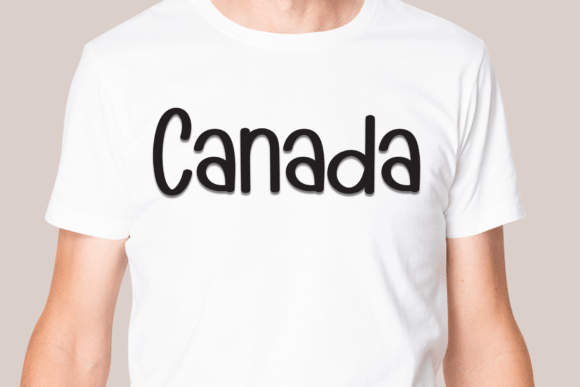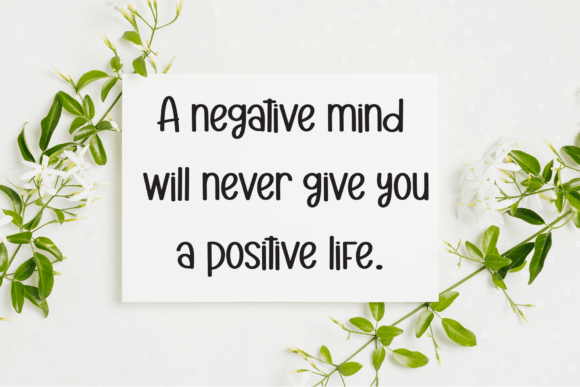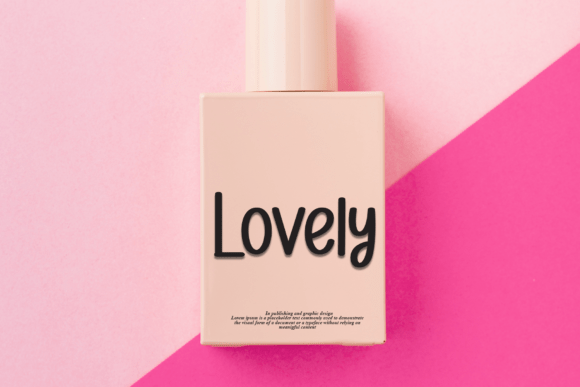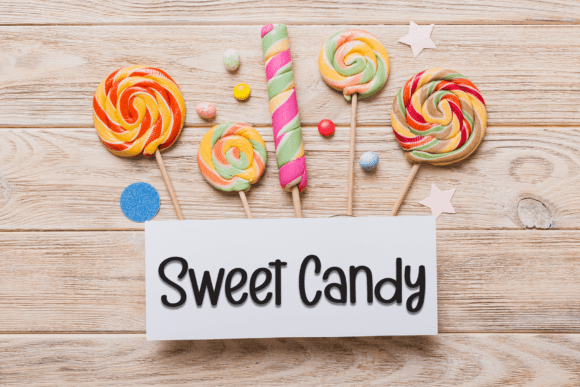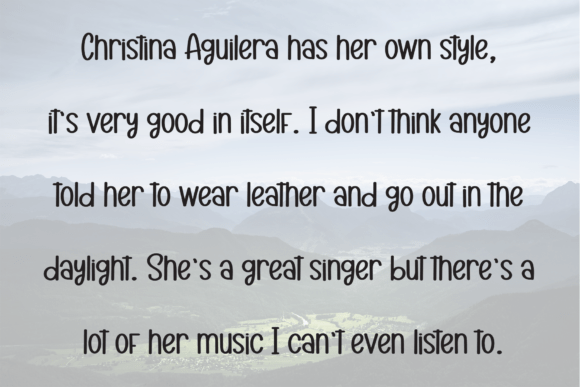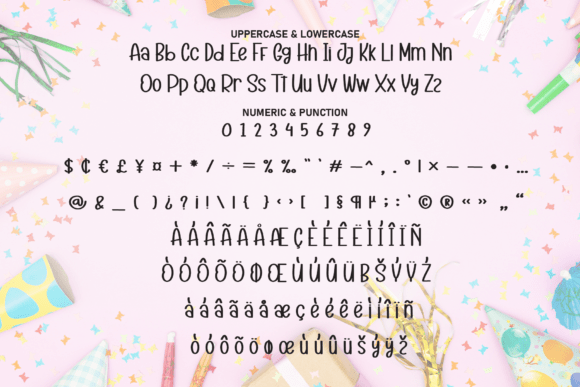
Introducing Birthday Font: The Perfect Blend of Warmth and Clarity
When it comes to creating visually appealing designs, the right font can make all the difference. If you’re looking for a font that exudes warmth, clarity, and approachability, look no further than Birthday Font. Designed to bring a touch of personality to your projects, Birthday Font is a casual and neat display font that’s perfect for a wide range of applications.
A Clean and Balanced Design
One of the standout features of Birthday Font is its clean structure and balanced letterforms. This makes it incredibly readable, even at smaller sizes, and gives it a charm that’s hard to resist. Whether you’re using it for branding, headlines, or everyday designs, Birthday Font is sure to make a lasting impression.
Birthday Font is a versatile font that’s perfect for designers and crafters alike. Its approachable style makes it ideal for projects that require a personal touch, such as:
- Branding: Use Birthday Font to create a warm and inviting brand identity that resonates with your audience.
- Headlines: Add a touch of personality to your headlines with Birthday Font’s clean and balanced design.
- Everyday designs: From social media graphics to blog posts, Birthday Font is perfect for adding a touch of warmth and charm to your everyday designs.
What Sets Birthday Font Apart
So, what sets Birthday Font apart from other fonts on the market? Here are just a few of its unique features:
- Clean structure: Birthday Font’s clean structure makes it incredibly readable and gives it a modern feel.
- Balanced letterforms: The balanced letterforms in Birthday Font offer a perfect blend of readability and charm.
- Approachable style: Birthday Font’s approachable style makes it perfect for projects that require a personal touch.
- Versatility: Birthday Font is a versatile font that can be used for a wide range of applications.
Tips for Using Birthday Font
Here are a few tips for getting the most out of Birthday Font:
- Use it sparingly: Birthday Font is a display font, so use it sparingly to add emphasis to your designs.
- Experiment with sizes: Birthday Font is clear and readable at a range of sizes, so don’t be afraid to experiment.
- Pair it with other fonts: Birthday Font pairs well with a range of other fonts, so try pairing it with a sans-serif font for a modern look.
In conclusion, Birthday Font is a fantastic addition to any designer’s toolkit. Its clean structure, balanced letterforms, and approachable style make it perfect for a wide range of applications. Whether you’re a designer, crafter, or simply someone who loves working with fonts, Birthday Font is sure to bring warmth and clarity to your projects.